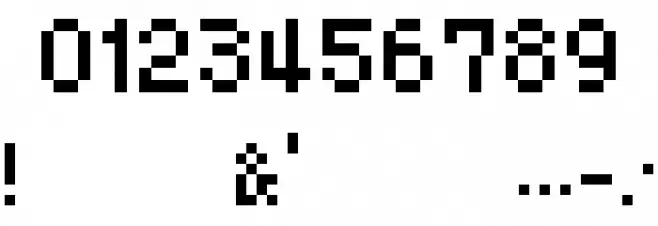
M05_DOKOITSU A Font
M05_DOKOITSU A Description
This font features a pixelated, blocky design reminiscent of classic video game typography. Each character is constructed with a grid-like precision, giving it a distinctly digital and retro appearance. The uppercase and lowercase letters maintain a uniform height, contributing to a cohesive and structured look. Numbers and special characters follow the same pixelated style, ensuring consistency across all elements. The font's simplicity and geometric form make it highly legible, even at smaller sizes, while its nostalgic aesthetic evokes a sense of early computing and arcade games.
A pixelated, retro-style font with a blocky, digital appearance from Uncategorized fonts.
- Proposed Projects: Ideal for retro video game designs, digital art projects, or any creative work seeking a nostalgic, pixelated aesthetic.
- Overall Style: Retro, Digital
- Use Case: Logos, Headlines, Digital Art